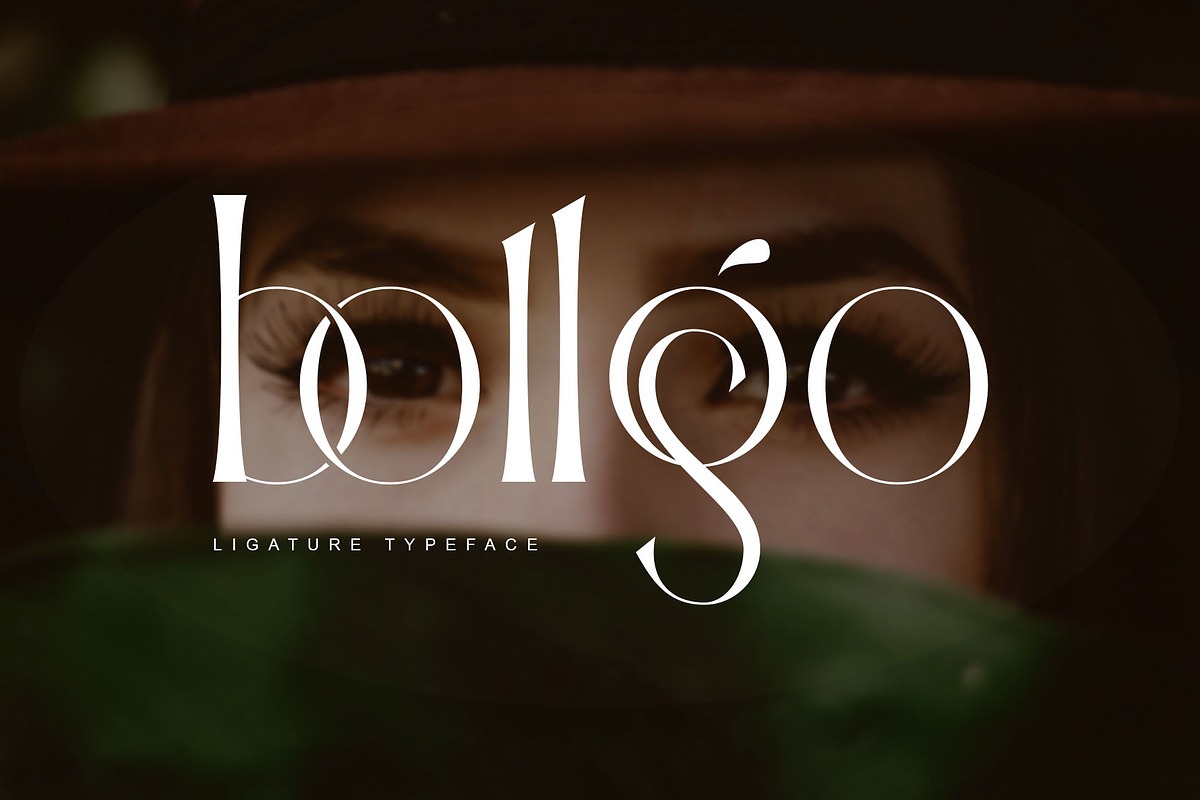
Bollgo Font
Bollgo Font is a premium-quality font developed to enhance your work with a polished, modern, and visually elevated look. Bollgo is a elegant and classy serif typeface – This font is both modern and nostalgic and works great for logos, magazine, social media. Already matched up and ready to be used together for your next design! For those of you who are needing a touch of elegant, stylish, classy, chic and modernity for your designs, this font was created for you!
Bollgo was built with OpenType features and includes ligatures, numbers, punctuation, and it also supports other languages.